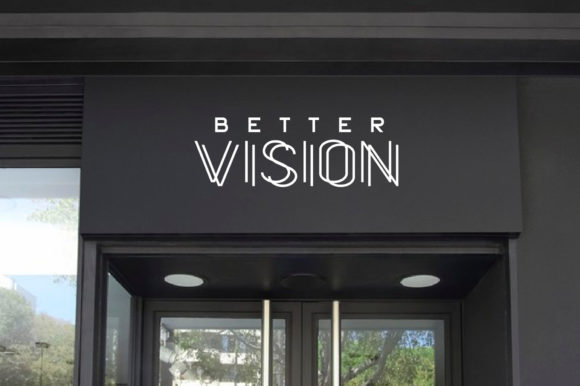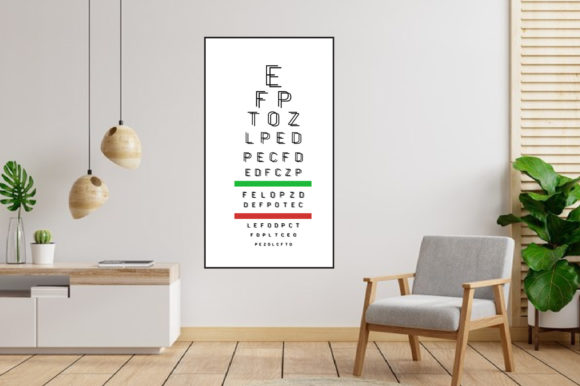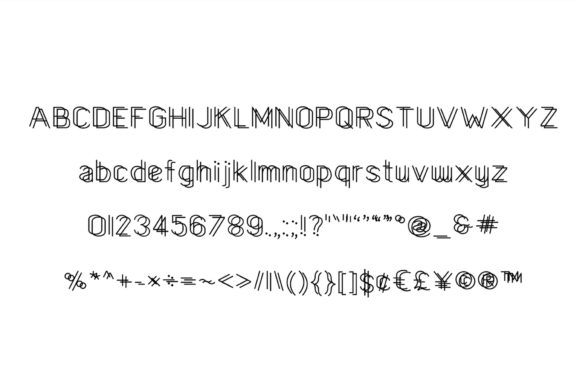
Get Ready to See Double
Have you ever been brainstorming a creative project, and suddenly, a spark of inspiration strikes? Maybe it’s a custom invitation, a personalized journal, or a unique wall art piece. Whatever it is, you want it to stand out and reflect your personality. That’s where the Double Vision Font comes in – a mirrored-style display that adds a touch of elegance and sophistication to any project.
This versatile font is perfect for designers looking to add a personal touch to their work. With its symmetrical design, the Double Vision Font creates a sense of balance and harmony, making it an excellent choice for crafting projects that require a unique look. Whether you’re a seasoned pro or a DIY enthusiast, this font is sure to elevate your creations and leave a lasting impression.
Double Vision Font Key Features
- Unique Characteristics: The font features a unique double vision effect, where the text appears to be layered on top of itself, creating a striking and attention-grabbing visual effect.
- Font Width and Height: The font has an average width and height, making it easy to read and use in a variety of applications, from body text to headings.
Double Vision Font Review
As a designer, I was excited to dive into the world of Double Vision Font and see what it had to offer. Here’s my honest review:
- Unique design**: Double Vision Font has a bold and eye-catching design that’s sure to grab attention. The creative use of overlapping letters and shapes creates a dynamic, energetic feel.
- Highly customizable**: With its OpenType features, you can easily adjust the font to fit your specific needs. From font sizes to line spacing, the possibilities are endless.
- Perfect for modern designs**: Double Vision Font is ideal for modern, trendy designs that need a bit of edge. It’s perfect for fashion, technology, or lifestyle brands.
- Readability issues**: At smaller font sizes, the overlapping letters can make the text difficult to read. This may be a concern for designs where clarity is key.
- Not suitable for all audiences**: Double Vision Font’s bold, playful style may not be suitable for more conservative or traditional brands. It’s best for bold, modern designs.
Overall, I think Double Vision Font is a great choice for designers looking for a unique, attention-grabbing font. While it has some limitations, its customization options and modern aesthetic make it a valuable addition to any design toolbox.
Double Vision Font is ideal for:
- Creating eye-catching headlines and titles.
- Adding a futuristic or sci-fi touch to your designs.
- Highlighting important information or keywords.
Remember to use Double Vision Font sparingly to avoid overwhelming your audience.